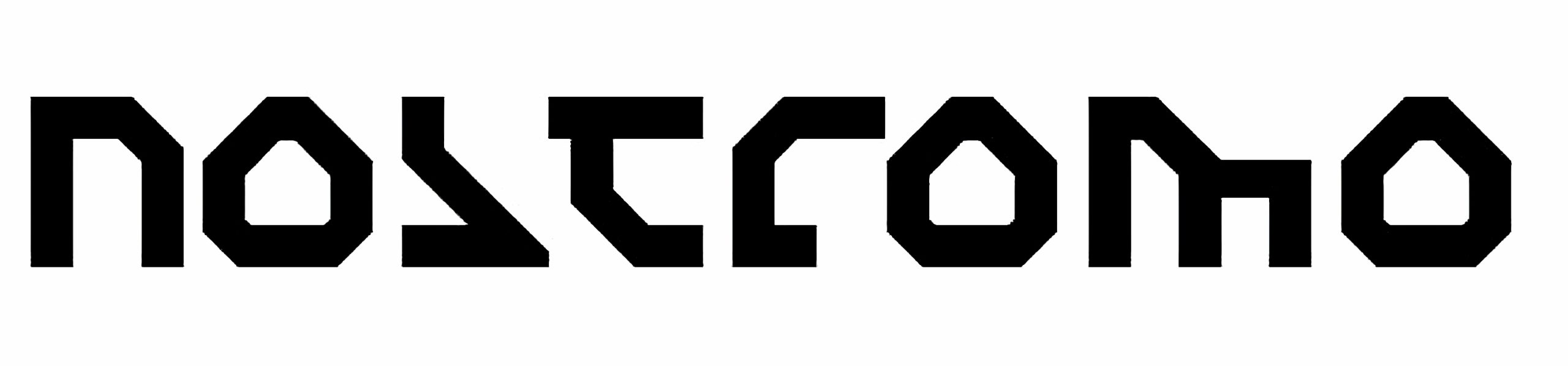
Nostromo
Nostromo is a techno font (2001). Squared-off, geometric letters give it a digital, high-tech feel. You get nine styles in one free ZIP, and the preview above lets you test each one before you download.
- Font styles: 9 (Regular, 3D, Condensed, Expanded, Leftalic, 3D Italic, Condensed Italic, Expanded Italic and Italic)
- Glyphs: 119 in the Regular style
You get every letter from A to Z in both cases and all the numbers from 0 to 9, which means Nostromo can handle full sentences, dates and prices. Everyday marks like &, !, ? and @ are there too. It has 3 accented letters, but not the full set for Spanish or French, so test any non-English words first.
Nostromo is a natural fit for gaming logos, tech branding and futuristic posters. Try it on a dark background with a bright accent color for a sharp, modern look. Because the family has more than one style, you can mix them in a single design for headings, subheadings and highlights.
A simple sans serif like Roboto keeps longer text easy to read next to it.